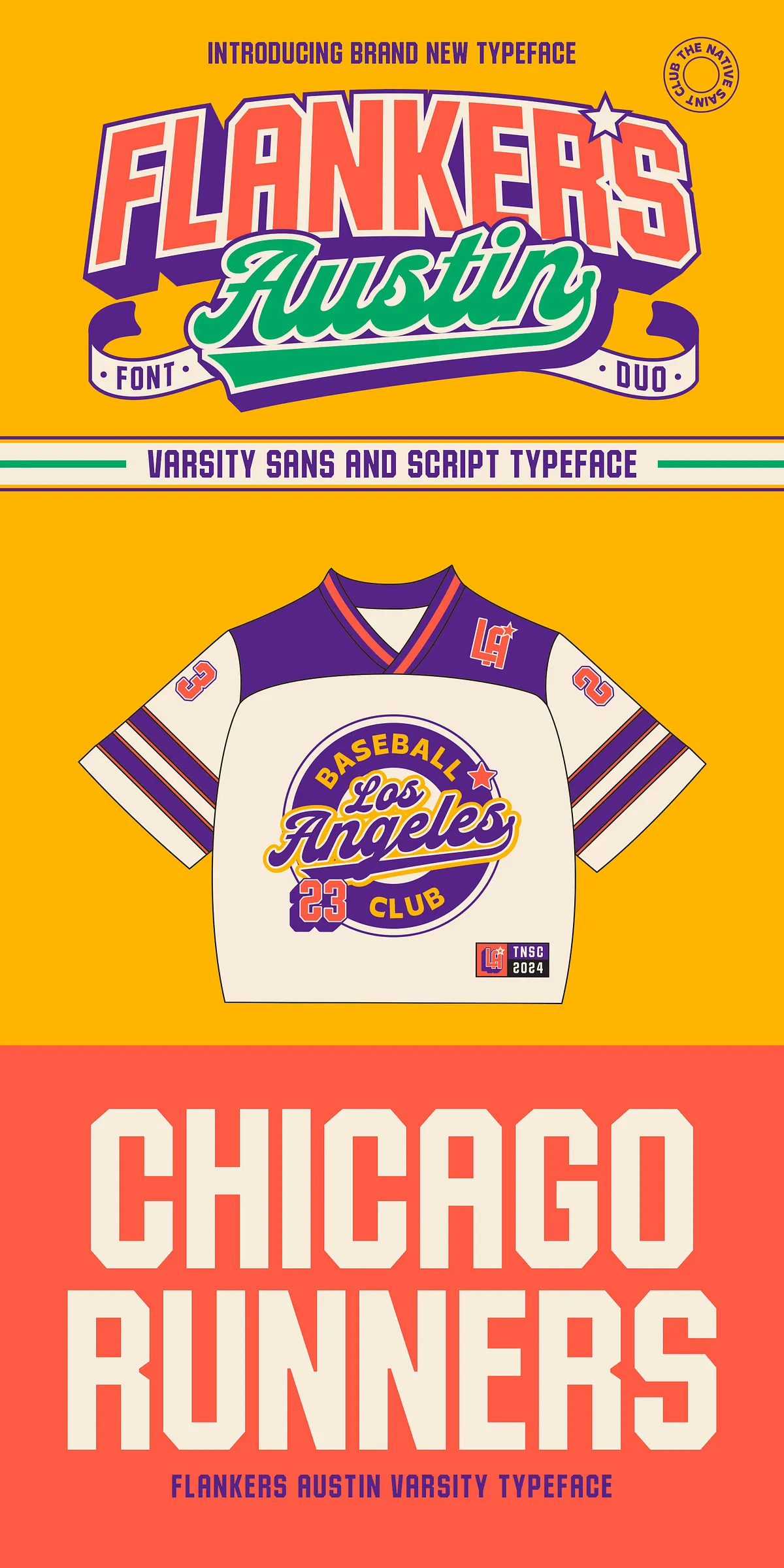
Step onto the gridiron of design with Flankers Austin, a commanding retro varsity font duo engineered for boldness, tradition, and timeless appeal. Whether you’re crafting a high-school football team logo, designing vintage baseball merchandise, or building a brand with authentic 1950s charm, this font duo delivers the visual swagger of classic American sport heritage—without compromise.
Two Fonts. One Legendary Legacy.
Flankers Austin isn’t just a pair of typefaces—it’s a dynamic duo designed to work in perfect harmony. The combination of a fluid script and a rigid, geometric sans serif creates a striking typographic contrast that commands attention and tells a powerful visual story.
Flankers Austin Script – Flowing Elegance with Vintage Flair
The script component captures the soul of hand-lettered signwriting, with graceful, sweeping curves and decorative flourishes that mimic the ink trails of real paintbrushes. Each character is designed for maximum expressiveness, making it ideal for:
- Headlines in vintage sports posters
- Team names for football or baseball franchises
- Logos with a personal, handcrafted touch
- Event invitations and memorabilia
Use it to evoke nostalgia, elegance, and the unmatchable energy of a live game day.
Flankers Austin Sans – Bold, Uniform, Unstoppable
Where the script flows, the sans serif stands firm. This clean, blocky, all-caps sans serif features sharp angles, uniform stroke widths, and a strong vertical presence—just like the lettering on a real varsity jacket. It brings stability, precision, and power to any composition. Perfect for:
- Team badges and jersey numbers
- Branding for sportswear, gear, and merchandise
- Packaging and print ads with retro vibes
- Logo lockups that need balance and impact
It’s not just a font—it’s a statement of strength, discipline, and presence.
Designed for Real-World Use – From Draft to Final Print
Flankers Austin is built for professionals who demand performance, versatility, and compatibility. Every style is optimized for use across print and digital platforms, ensuring flawless appearance at every scale—from digital banners to large-scale stadium signage.
Pro-Level Features You Can Count On:
- Full Character Support: Comprehensive Latin character set with special symbols and ligatures for clean, natural-looking text.
- OpenType Features: Access to stylistic sets and alternate glyphs for advanced typographic control.
Perfect For: Designers Who Love Tradition with a Modern Edge
Need a font that screams “legacy” and “momentum” at the same time? Flankers Austin is perfect for:
- Creating authentic football and baseball team logos with deep visual roots.
- Designing retro-themed merchandise like caps, jerseys, and posters.
- Building brand identities for sports bars, gear shops, or vintage apparel lines.
- Producing print ads, packaging, and flyers with an instantly recognizable vintage aesthetic.
- Enhancing digital content with bold, memorable typography that stops the scroll.
Whether you’re revamping a local school’s branding or launching a luxury sportswear line, Flankers Austin gives you the tools to create with purpose, power, and personality. It’s more than a font—it’s a legacy in type.